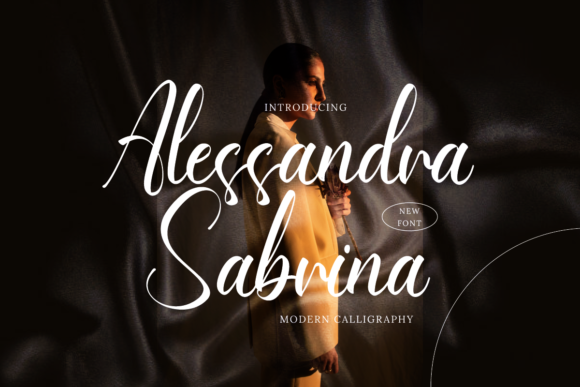
Introducing Alessandra Sabrina Font: The Epitome of Elegance and Sophistication
Are you tired of using the same old fonts for your designs? Do you want to add a touch of elegance and class to your projects? Look no further than Alessandra Sabrina Font, a lovely and delicate script font that is sure to take your designs to the next level. In this article, we’ll take a closer look at Alessandra Sabrina Font, its features, and why it’s the perfect choice for your design needs.
What is Alessandra Sabrina Font?
Alessandra Sabrina Font is a beautiful script font that exudes elegance and sophistication. It was particularly crafted for those who need a beautiful and refreshing look to their designs. This font is perfect for anyone who wants to add a touch of luxury and refinement to their projects, whether it’s a branding campaign, a website, or a marketing material.
Key Features of Alessandra Sabrina Font
So, what makes Alessandra Sabrina Font so special? Here are some of its key features:
- Delicate and Elegant: Alessandra Sabrina Font is a delicate and elegant script font that is perfect for designs that require a touch of sophistication.
- Beautifully Crafted: This font was carefully crafted to ensure that it is not only beautiful but also highly legible.
- Refreshing Look: Alessandra Sabrina Font has a refreshing look that is sure to make your designs stand out from the crowd.
- Perfect for Designs: This font is perfect for a wide range of designs, including branding campaigns, websites, marketing materials, and more.
Why Choose Alessandra Sabrina Font?
So, why should you choose Alessandra Sabrina Font for your design needs? Here are some compelling reasons:
- Unique and Distinctive: Alessandra Sabrina Font is a unique and distinctive font that will set your designs apart from others.
- Elegant and Sophisticated: This font exudes elegance and sophistication, making it perfect for designs that require a touch of luxury.
- Highly Legible: Alessandra Sabrina Font is highly legible, making it perfect for designs that require a clear and easy-to-read font.
- Versatile: This font is versatile and can be used for a wide range of designs, from branding campaigns to websites and marketing materials.
How to Use Alessandra Sabrina Font
Using Alessandra Sabrina Font is easy. Here are some tips on how to get the most out of this beautiful font:
- Pair it with Other Fonts: Alessandra Sabrina Font can be paired with other fonts to create a unique and interesting design.
- Use it for Headings: This font is perfect for headings and titles, where its elegance and sophistication can really shine.
- Experiment with Colors: Alessandra Sabrina Font looks great in a variety of colors, so don’t be afraid to experiment and find the perfect color for your design.
In conclusion, Alessandra Sabrina Font is a beautiful and elegant script font that is perfect for designs that require a touch of sophistication and luxury. Its delicate and refreshing look makes it a great choice for a wide range of designs, from branding campaigns to websites and marketing materials. With its highly legible and versatile design, Alessandra Sabrina Font is sure to take your designs to the next level.
Here are some frequently asked questions about Alessandra Sabrina Font:
- What is Alessandra Sabrina Font?: Alessandra Sabrina Font is a lovely and delicate script font that exudes elegance and class.